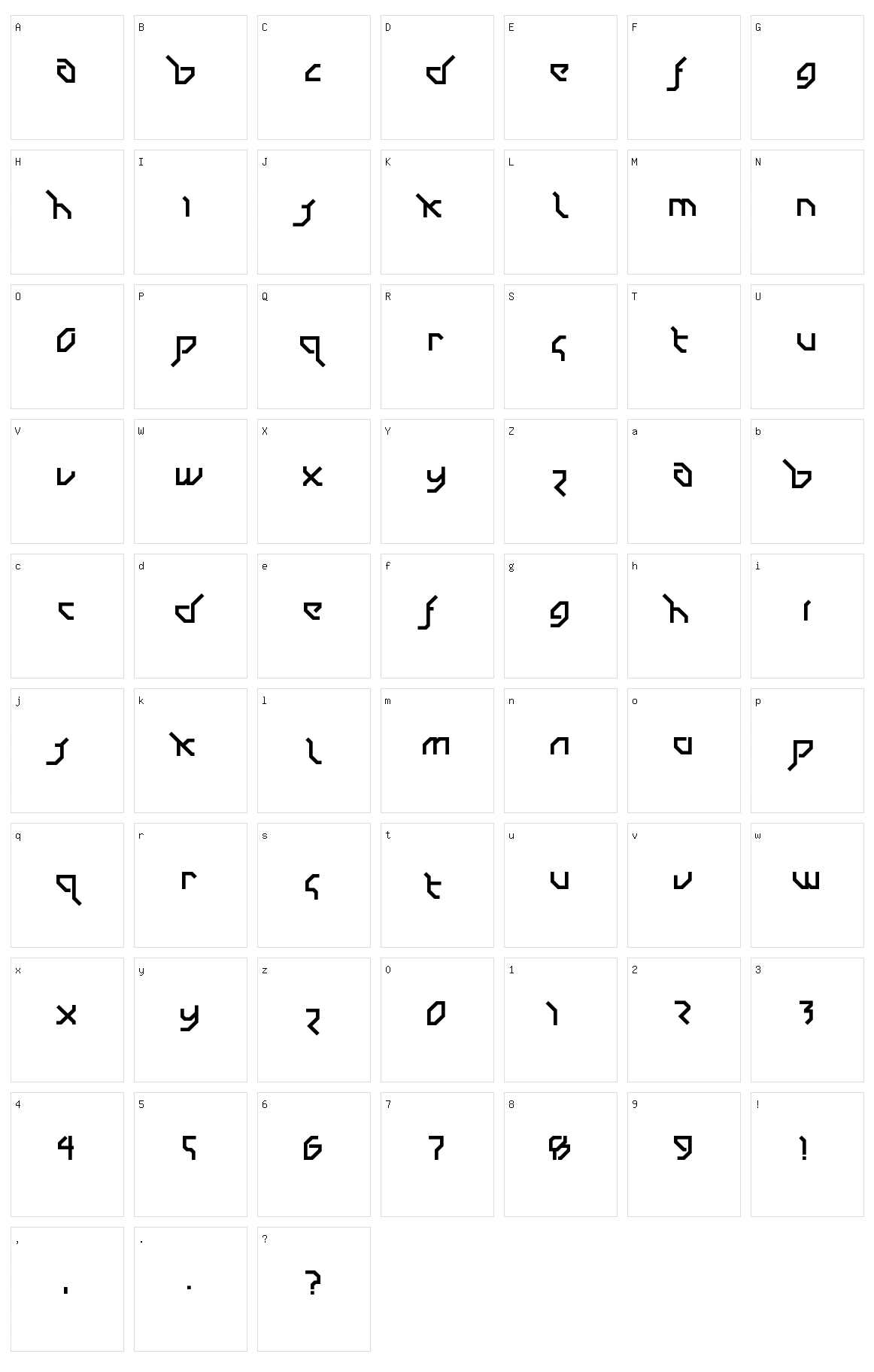
The free font Drum and Bass LDR is carefully designed by Neoqueto, showcasing a thoughtful balance of creativity and usability and falls under the Square font style. When you download the ZIP file, it contains only 62.96 KB of font files, making it lightweight and quick to download. Please review the license details below to understand permitted usage and distribution rights. If license information is not available, we recommend using this font for personal projects only or contacting the author directly for commercial usage permissions.